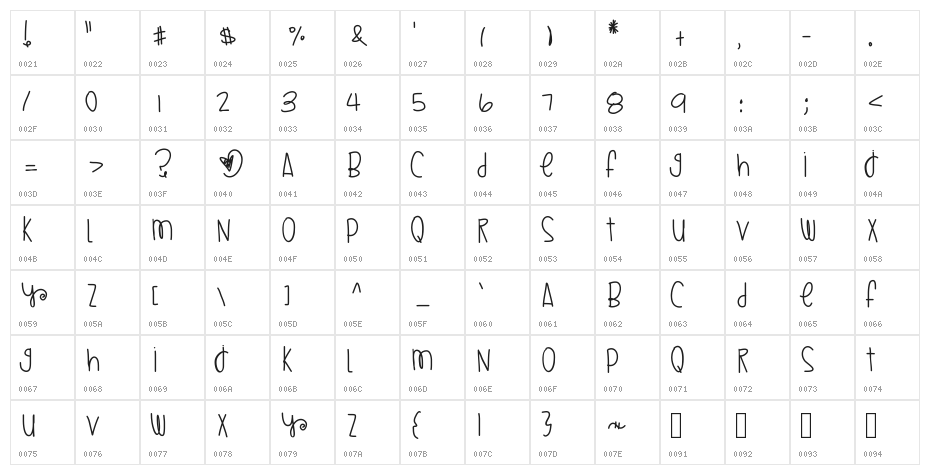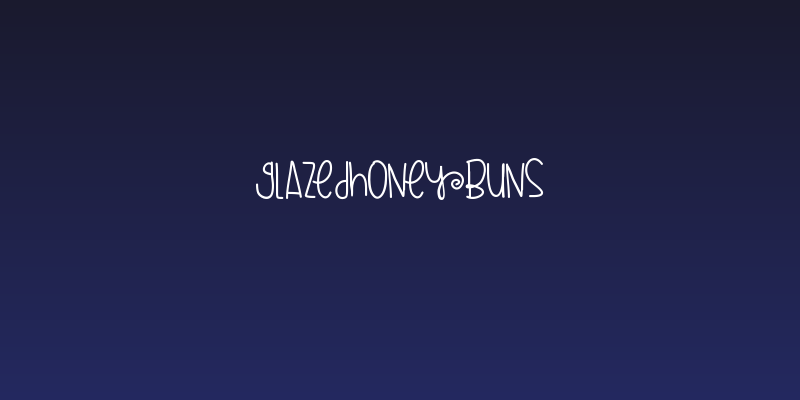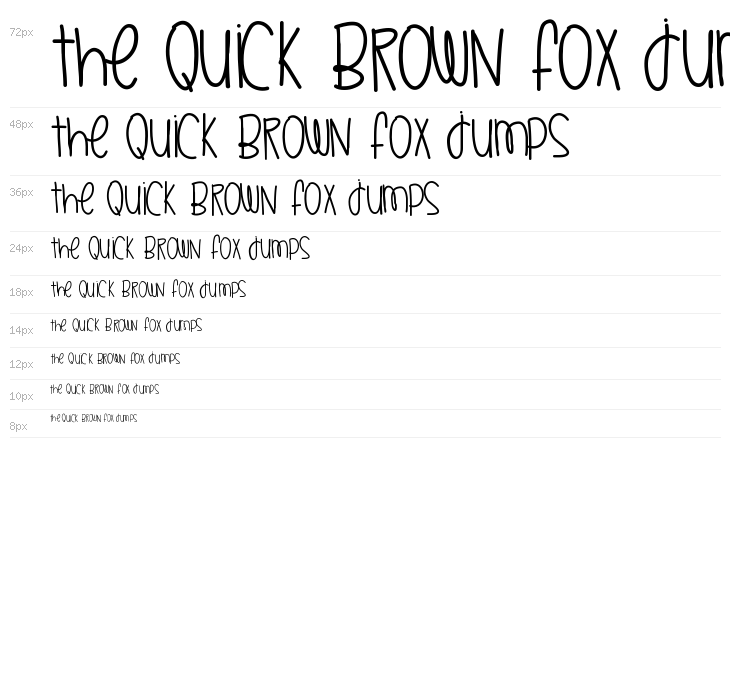
GlazedHoneyBuns Font
GlazedHoneyBuns Description
This playful and whimsical font features a handwritten style with a casual and friendly appearance. The letters are slightly irregular, giving it a charming and approachable feel. The uppercase and lowercase letters maintain a consistent flow, with some characters exhibiting unique loops and swirls, particularly noticeable in letters like 'g', 'y', and 'z'. The numbers are clear and easy to read, matching the overall style of the alphabet. Special characters are creatively designed, adding to the font's quirky personality. This font is perfect for projects that require a personal touch or a fun, informal vibe.
| Proposed Projects | Ideal for greeting cards, children's books, playful branding, and social media graphics. |